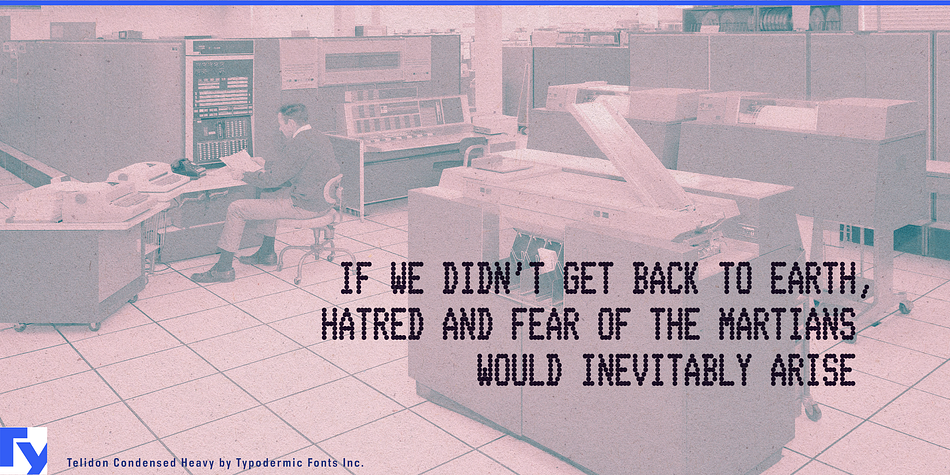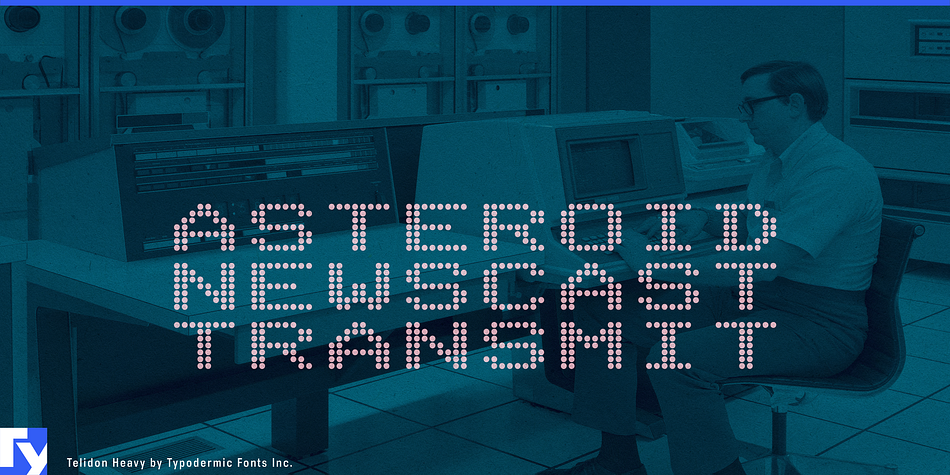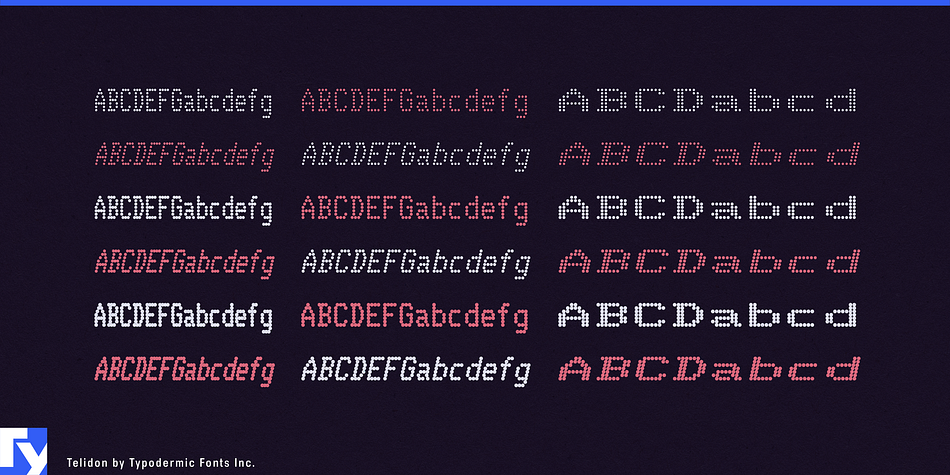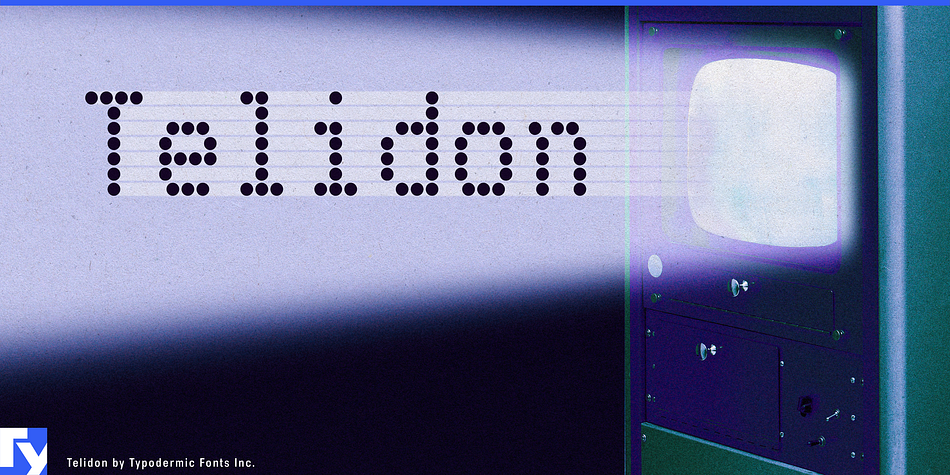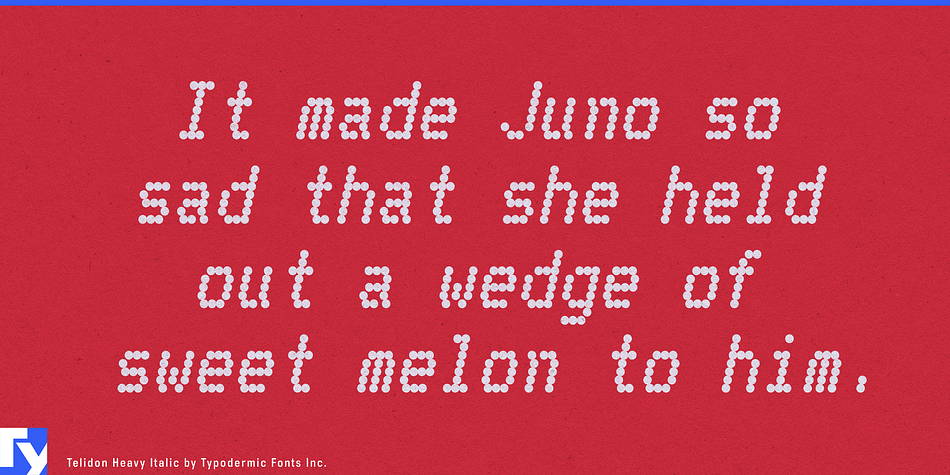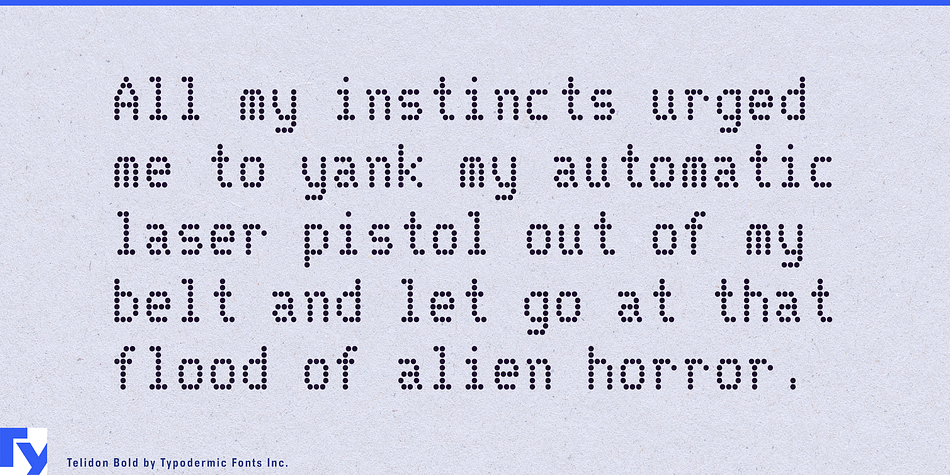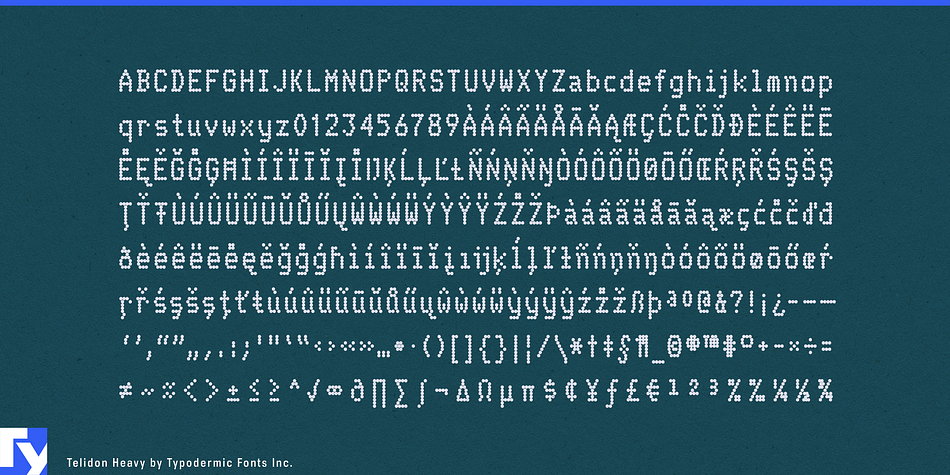
Telidon is a typewriter font family. This typeface has eighteen styles and was published by Typodermic Fonts Inc.
Telidon was inspired by the noisy, old dot matrix printers of the 1970s and 80s. You can almost hear the zinging of the print-head zipping across the tractor-fed pages. While printing the latest monthly sales figures, chances were pretty good you were looking at something like Telidon. The print was pixelly, monospaced and ungraceful but it had a certain charm and got the job done in a hurry even if it was noise was enough to drown out the bossÅfs voice. Revel in the irony of using your expensive modern printer to recreate the look of a dot matrix printer.